Fonts shape how audiences perceive a brand, product, or visual experience. In 2025, designers continue to gravitate toward typefaces that offer clarity, versatility, and strong identity support. This list highlights 5 top global fonts trusted across industries, followed by 5 essential Lettertype Studio (LTS) picks that bring fresh, modern character to contemporary design work.
🔥 Top 5 Global Fonts Used by Designers
1. Helvetica — Linotype
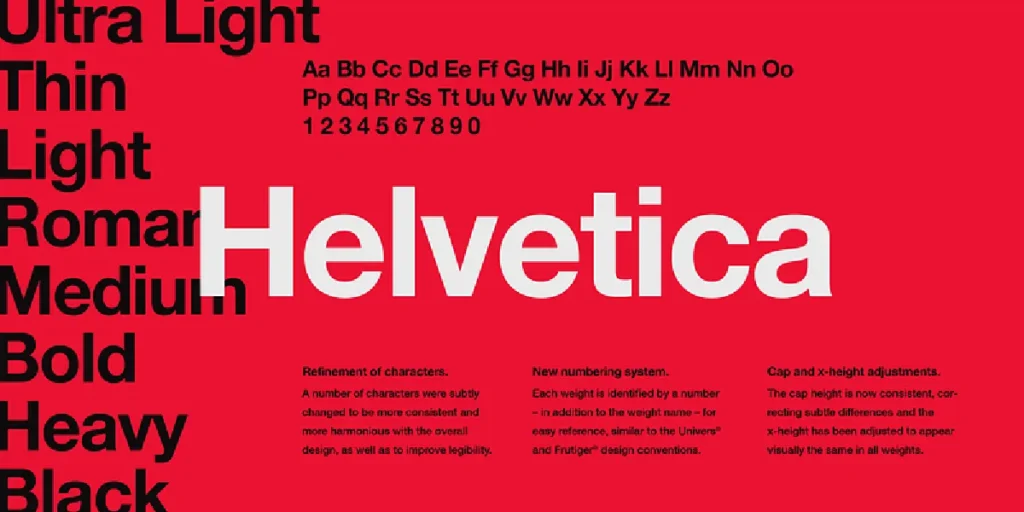
A universal favorite for branding and corporate identity. Its neutral voice, clean structure, and exceptional legibility make it one of the most dependable sans-serif families in design history.
2. Garamond — Stempel / Adobe
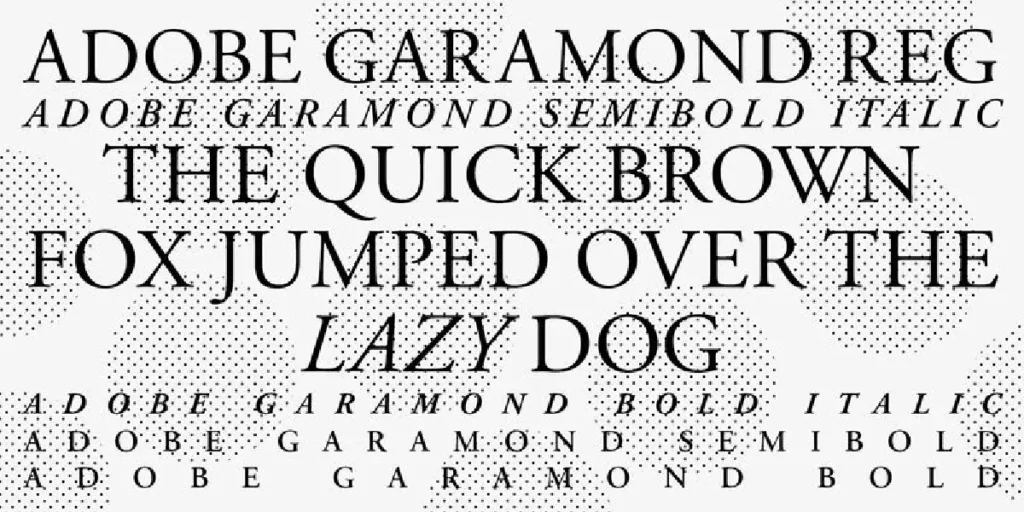
A timeless serif known for elegance and readability. Designers rely on Garamond for book publishing, editorial layouts, and premium branding that requires a classic touch.
3. Futura — Bauer Type Foundry
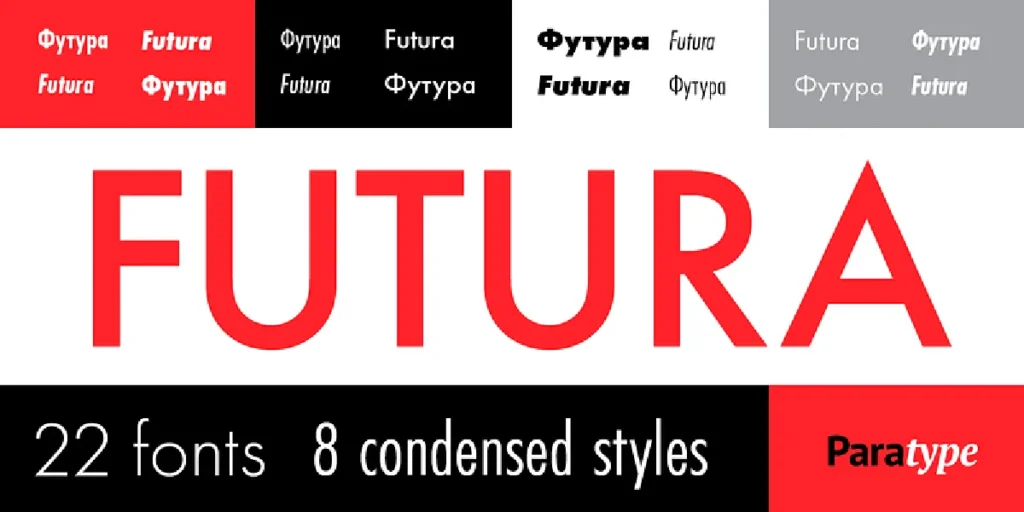
A geometric sans rooted in modernist design. Its sharp geometry and balanced proportions make it ideal for logos, packaging, and minimalist campaigns.
4. Gotham — Hoefler & Co.
Trusted by brands and institutions worldwide. Gotham projects confidence, clarity, and professionalism — perfect for corporate identities and political branding.
5. Roboto — Google
One of the most influential digital-era fonts. As the core Android UI typeface, Roboto combines mechanical structure with approachable curves, making it a staple in web and app design.
Top 5 Lettertype Studio Fonts Designers Should Use in 2025
1. Naru Sans
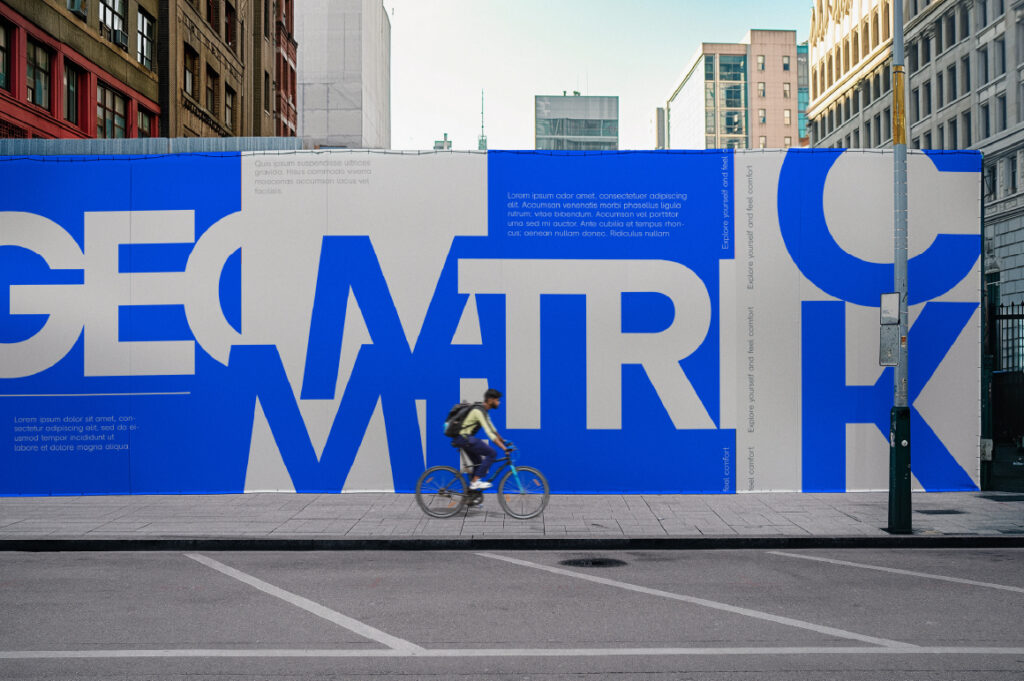
A refined geometric sans with 18 versatile styles.
Perfect for branding, tech startups, editorial layouts, and multilingual communication. A professional-grade family with excellent balance and modern character.
2. Lenia Sans
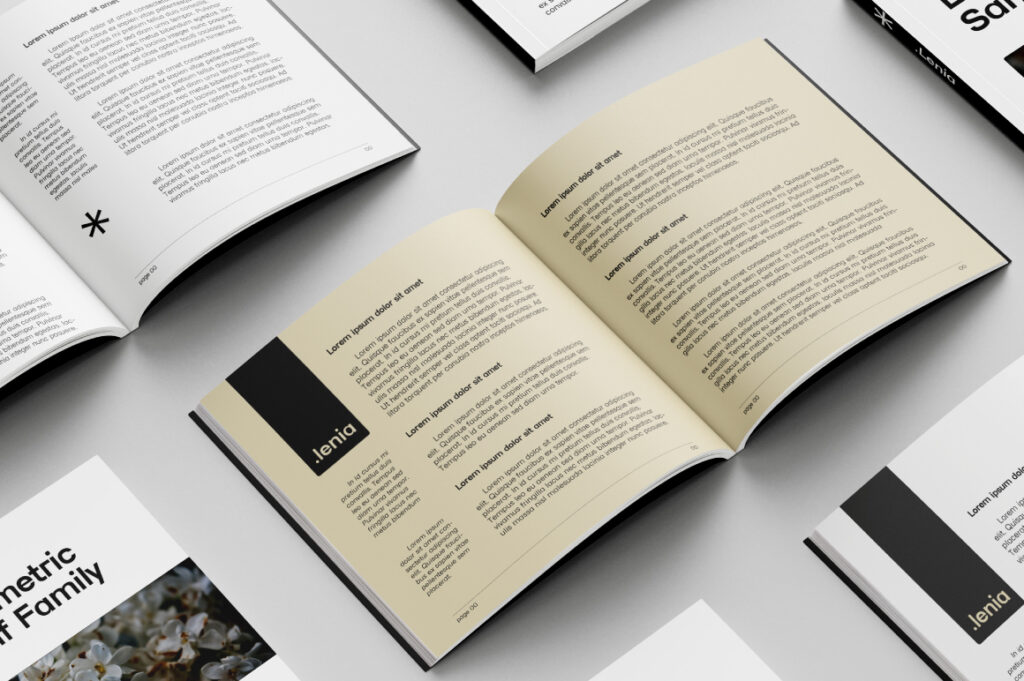
A polished geometric sans built for strong visual identity systems.
Its clean forms and premium execution make it a powerful alternative to industry standards like Avenir or Circular.
3. Raela Pro
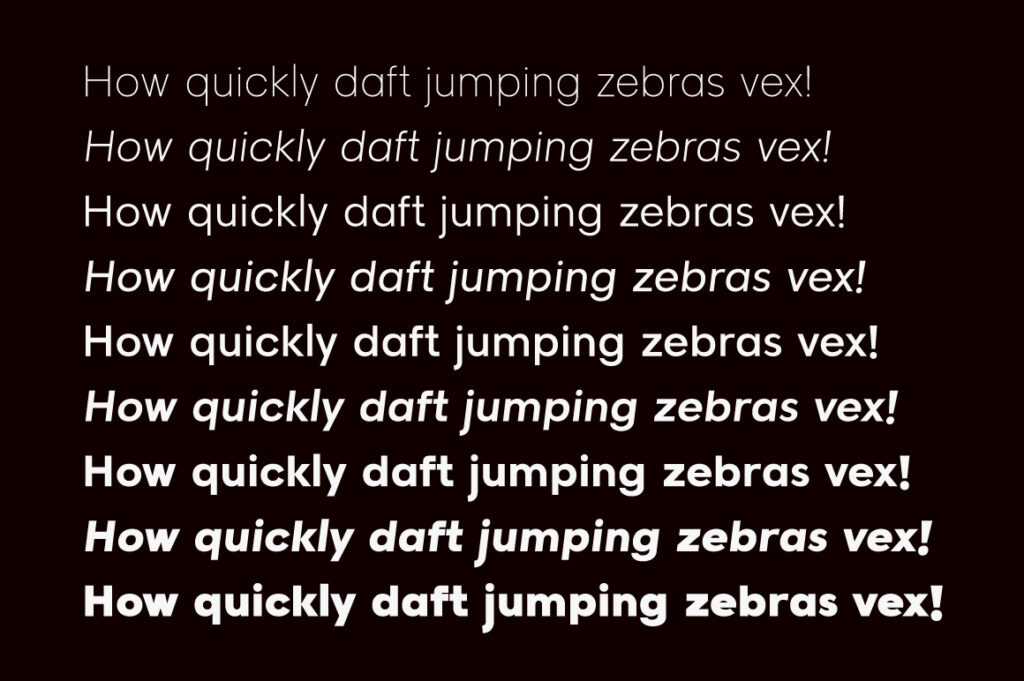
A modern grotesk with expanded weights and enhanced readability.
Ideal for corporate communications, UI design, and branding that prioritizes clarity and versatility.
4. Cheqa
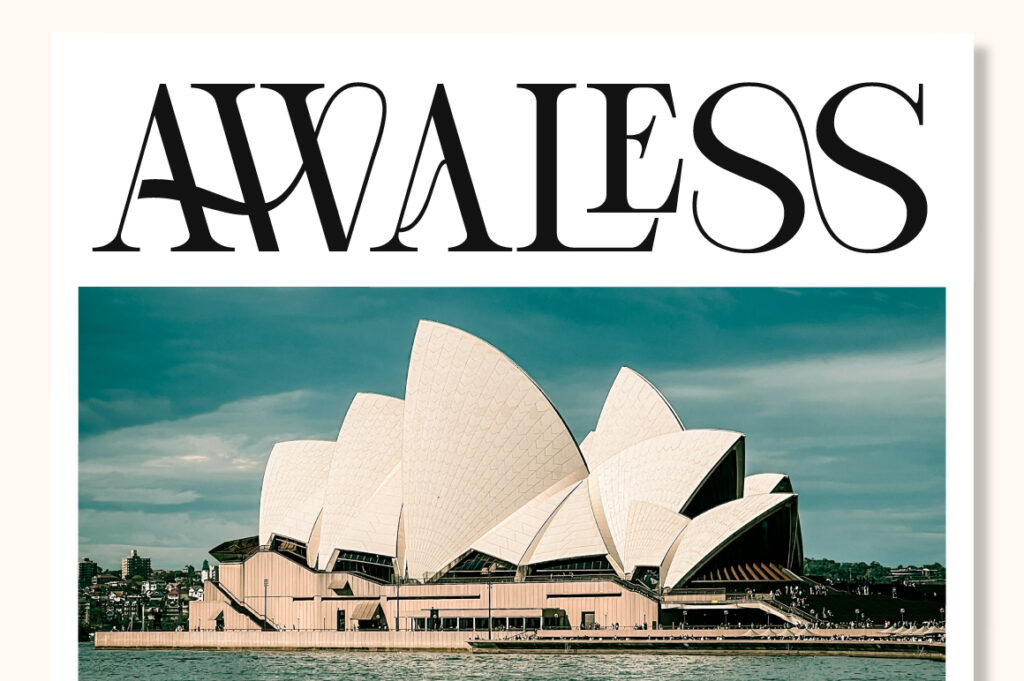
A luxury serif display that delivers elegance and striking detail.
Perfect for high-end branding, packaging, and editorial titles that demand a premium aesthetic.
5. Prolinea
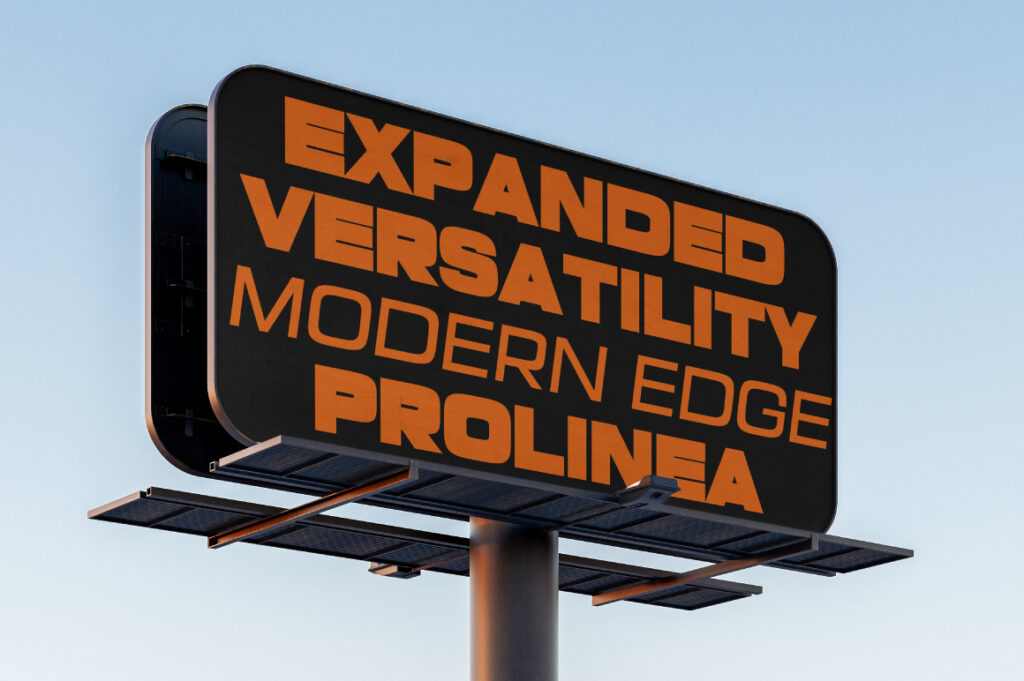
A minimalist sans with sleek, contemporary proportions.
Great for modern branding, tech companies, portfolios, and clean typographic systems that rely on precision.
Conclusion
These 10 best fonts — a blend of global classics and LTS originals — represent the core typography choices designers rely on in 2025. From corporate identities to digital interfaces and editorial work, selecting the right typeface can elevate the entire visual experience and strengthen a brand’s voice.